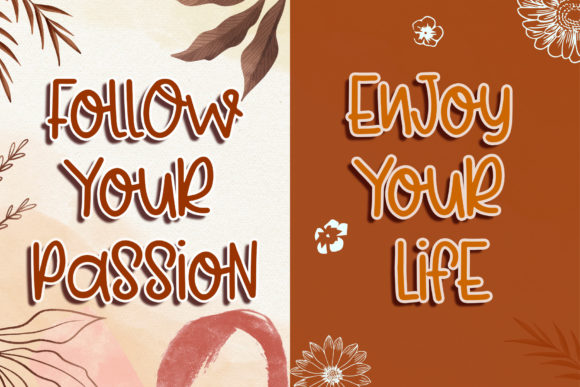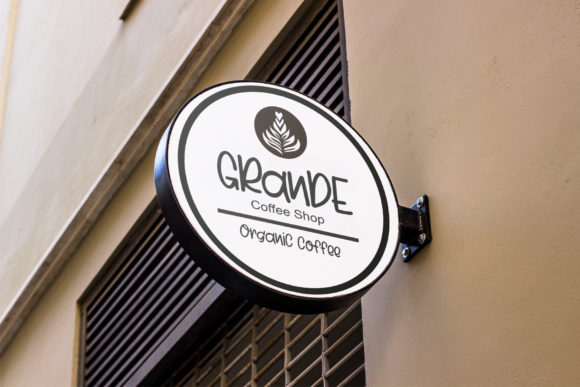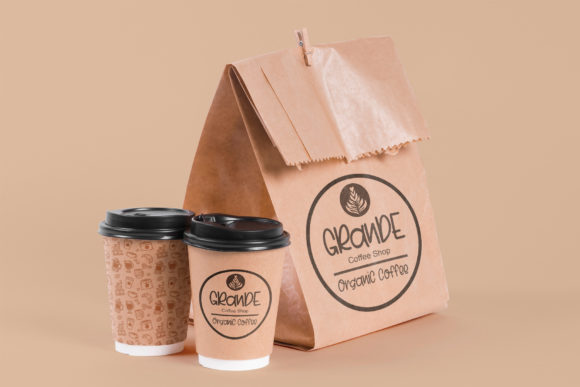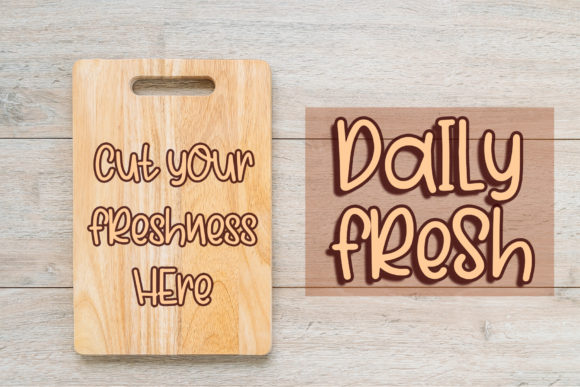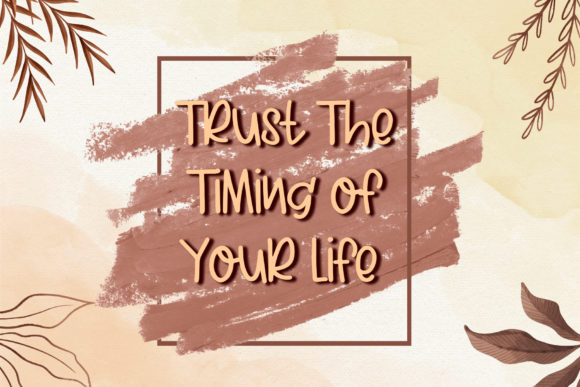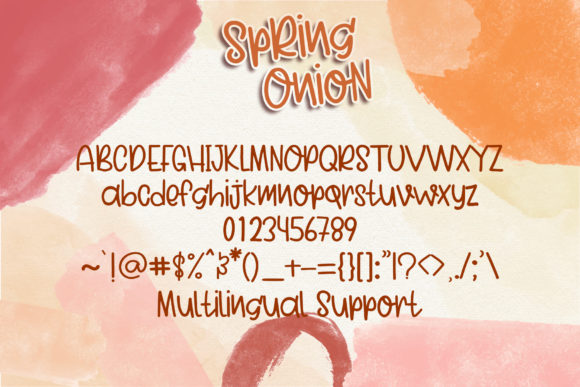
Spring Onion Font
About Spring Onion Font
Introducing “Spring Onion,” a cute and relaxed handwritten font that brings a joyful and fresh vibe to your designs. With its charming and casual style, this font is perfect for adding a touch of playfulness and positivity to your projects.
Spring Onion is designed to evoke a sense of happiness and lightheartedness. Its organic and flowing letterforms give it a natural and effortless feel, reflecting the carefree spirit of spring. Whether you’re designing greeting cards, posters, social media graphics, or any other creative piece, Spring Onion will infuse your designs with a cheerful and uplifting energy.
The relaxed nature of Spring Onion makes it incredibly versatile. It can be used in a variety of contexts, from children’s designs and playful illustrations to casual branding and lifestyle projects. Its simplicity and readability ensure that your message is conveyed clearly while maintaining a sense of warmth and approachability.
One of the standout features of Spring Onion is its ability to brighten up your designs. The font’s vibrant and lively appearance adds a pop of color and freshness to any composition. Its hand-drawn quality and subtle irregularities add character and authenticity, making your designs stand out with a unique and personal touch.
Spring Onion is designed with usability in mind. Each letter is carefully crafted to ensure legibility, even at smaller sizes. The spacing and proportions are optimized for readability, allowing your text to flow naturally and effortlessly across the page. Whether you’re using it for headlines, body text, or accents, Spring Onion remains clear and accessible.
Adding Spring Onion to your design projects is a confident choice. Its versatility and ability to instantly brighten up your designs will bring a smile to your audience’s faces. With Spring Onion, you can infuse your projects with a sense of joy and positivity, making them memorable and engaging.
In conclusion, Spring Onion is a cute and relaxed handwritten font that will bring a fresh and joyful vibe to your designs. Its versatility, readability, and ability to brighten up any composition make it an excellent choice for a wide range of projects. Add Spring Onion confidently to your design toolkit and watch your creations come to life with a playful and uplifting energy.